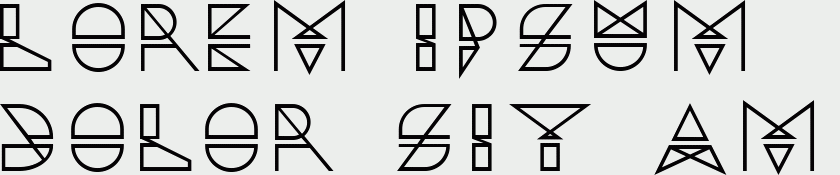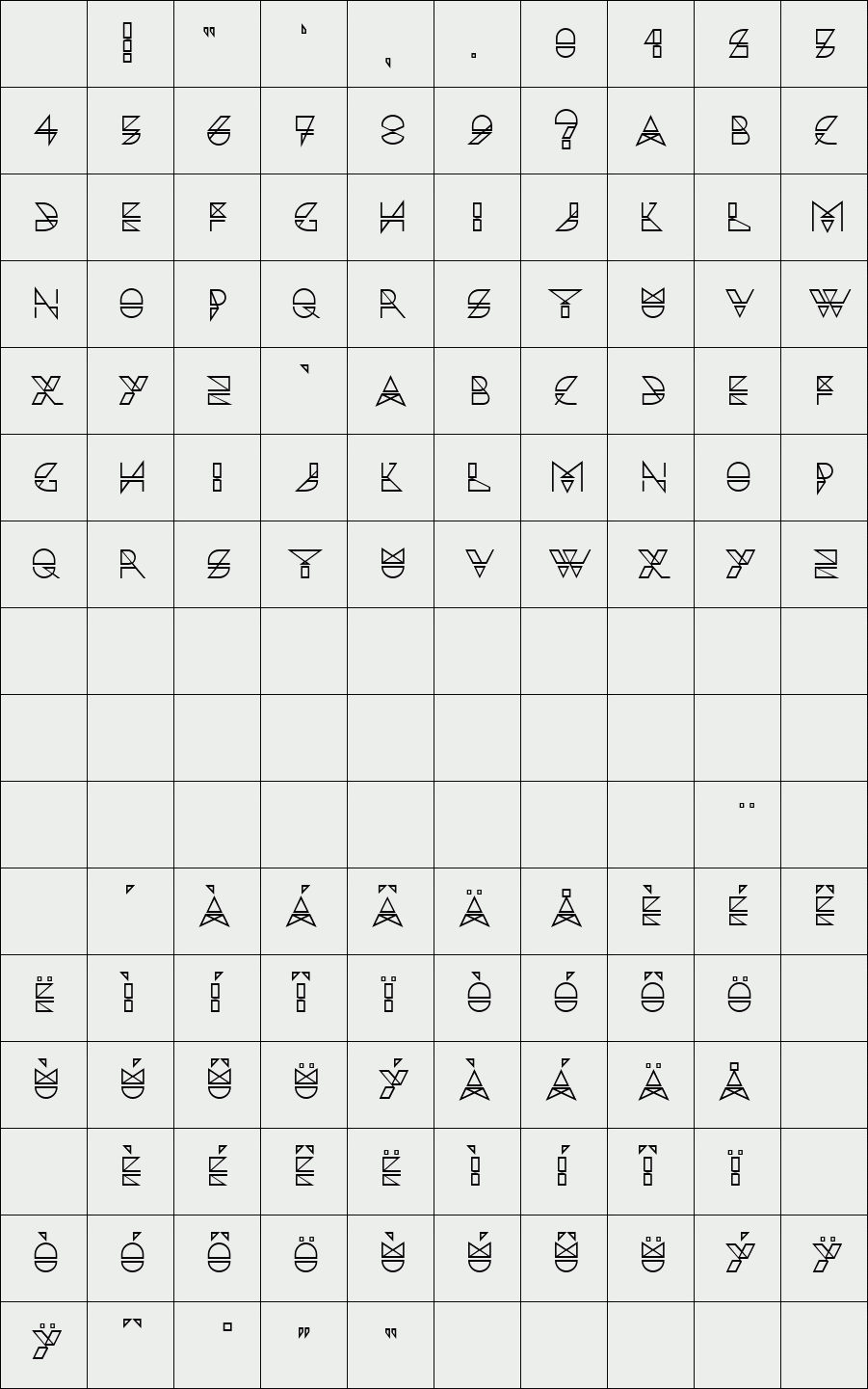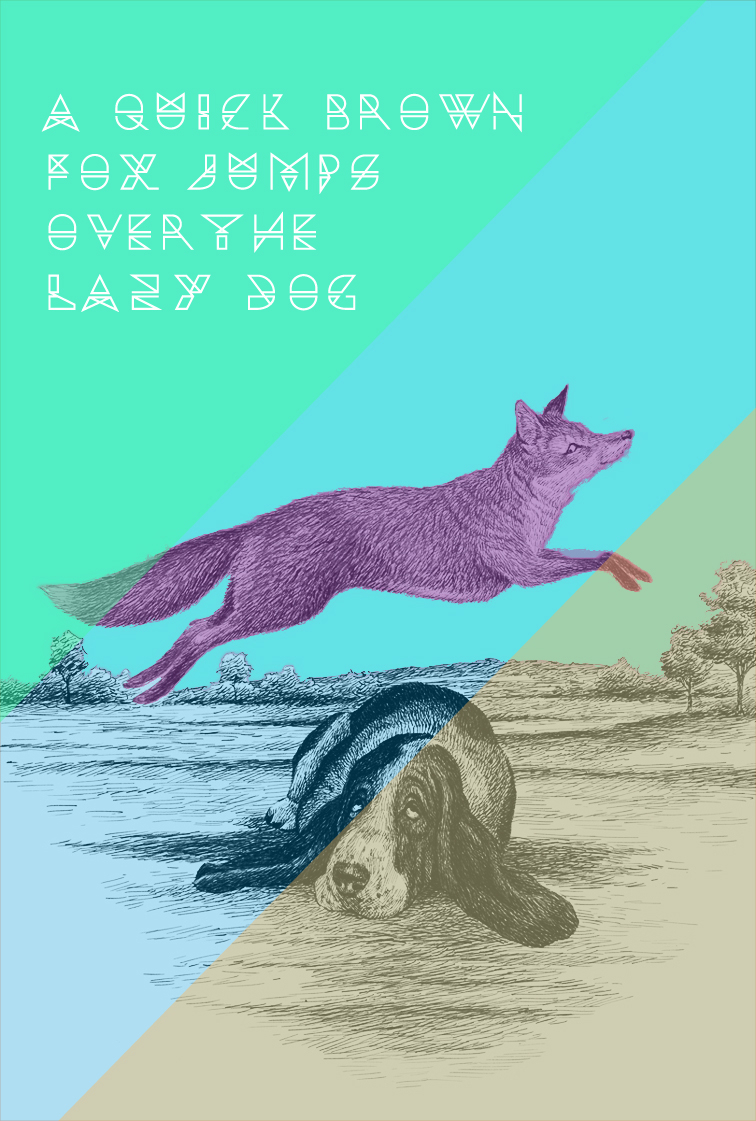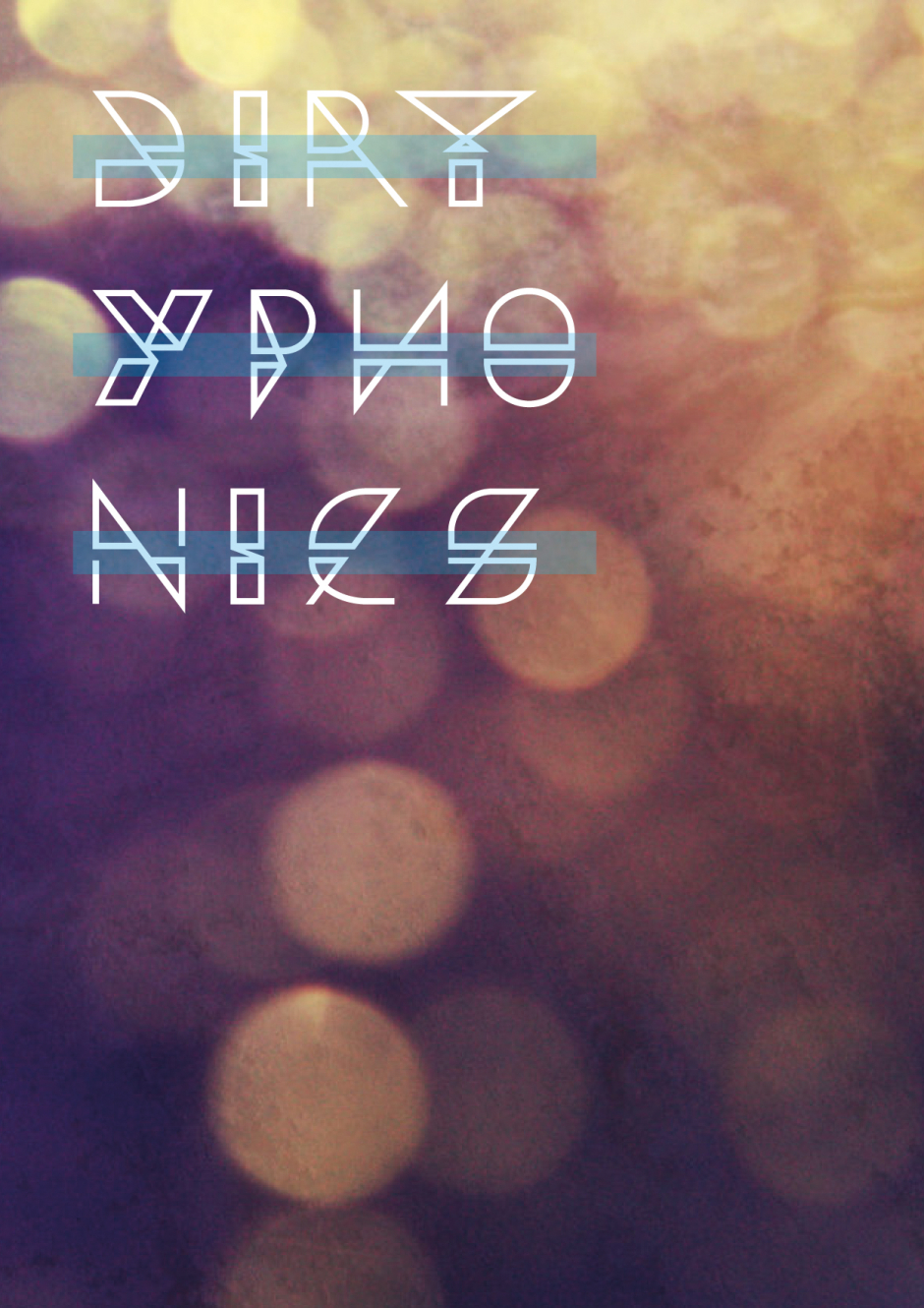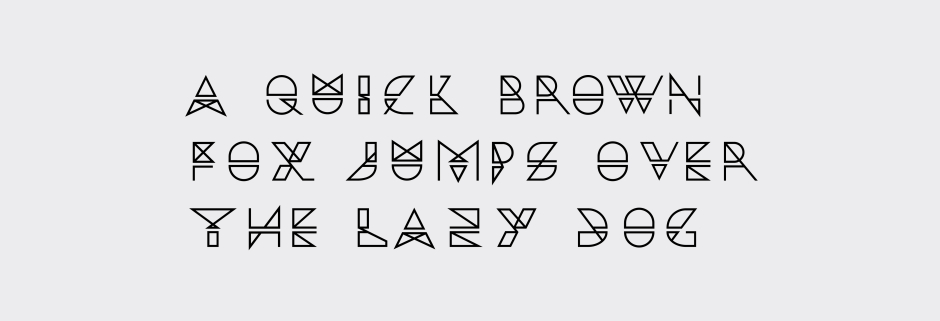
Rigel
Creative typeface created on a grid of 20x20 modules. It has been designed for titles, posters and headers because of its complicated structure.
Designer: Ludovico Cesetti